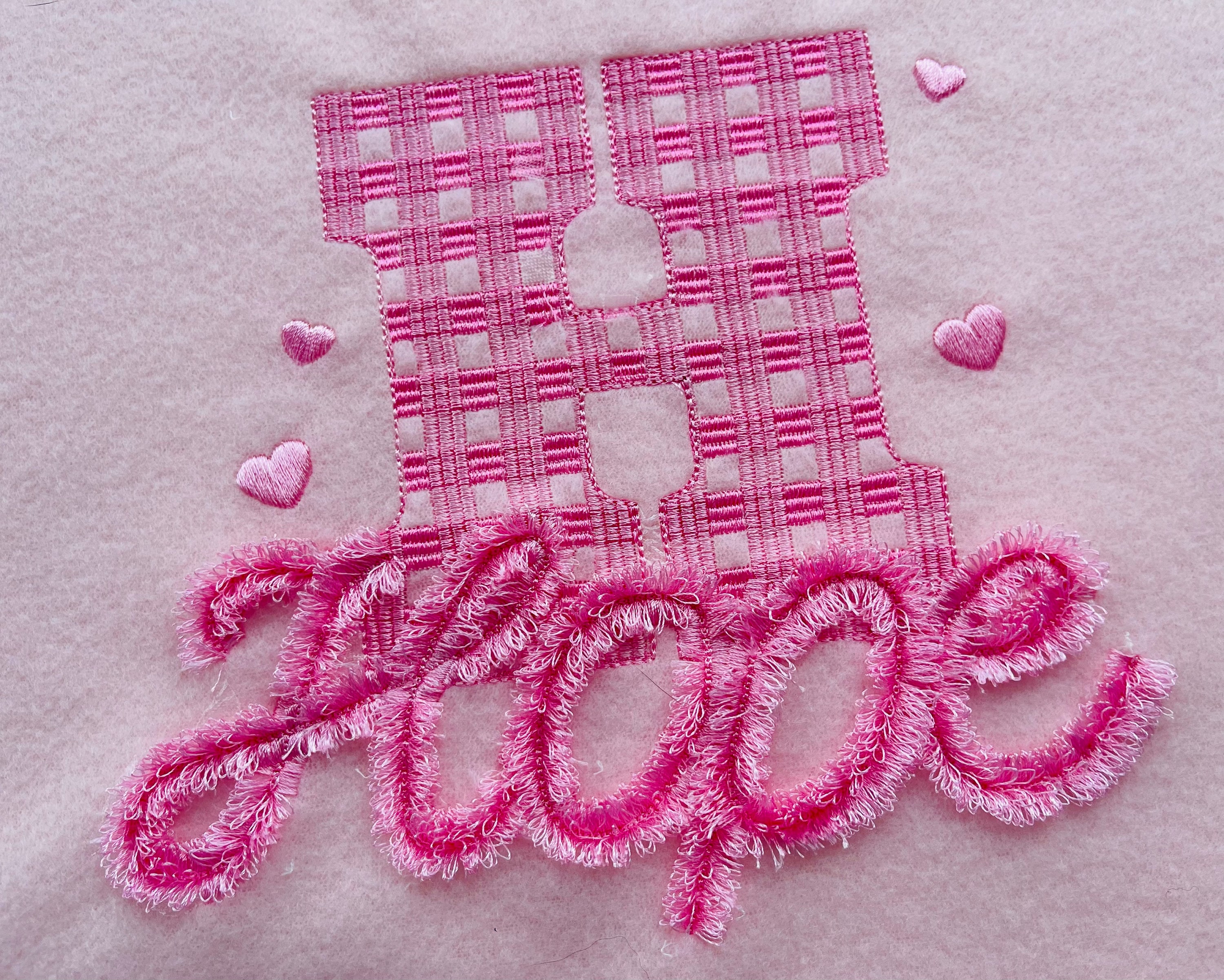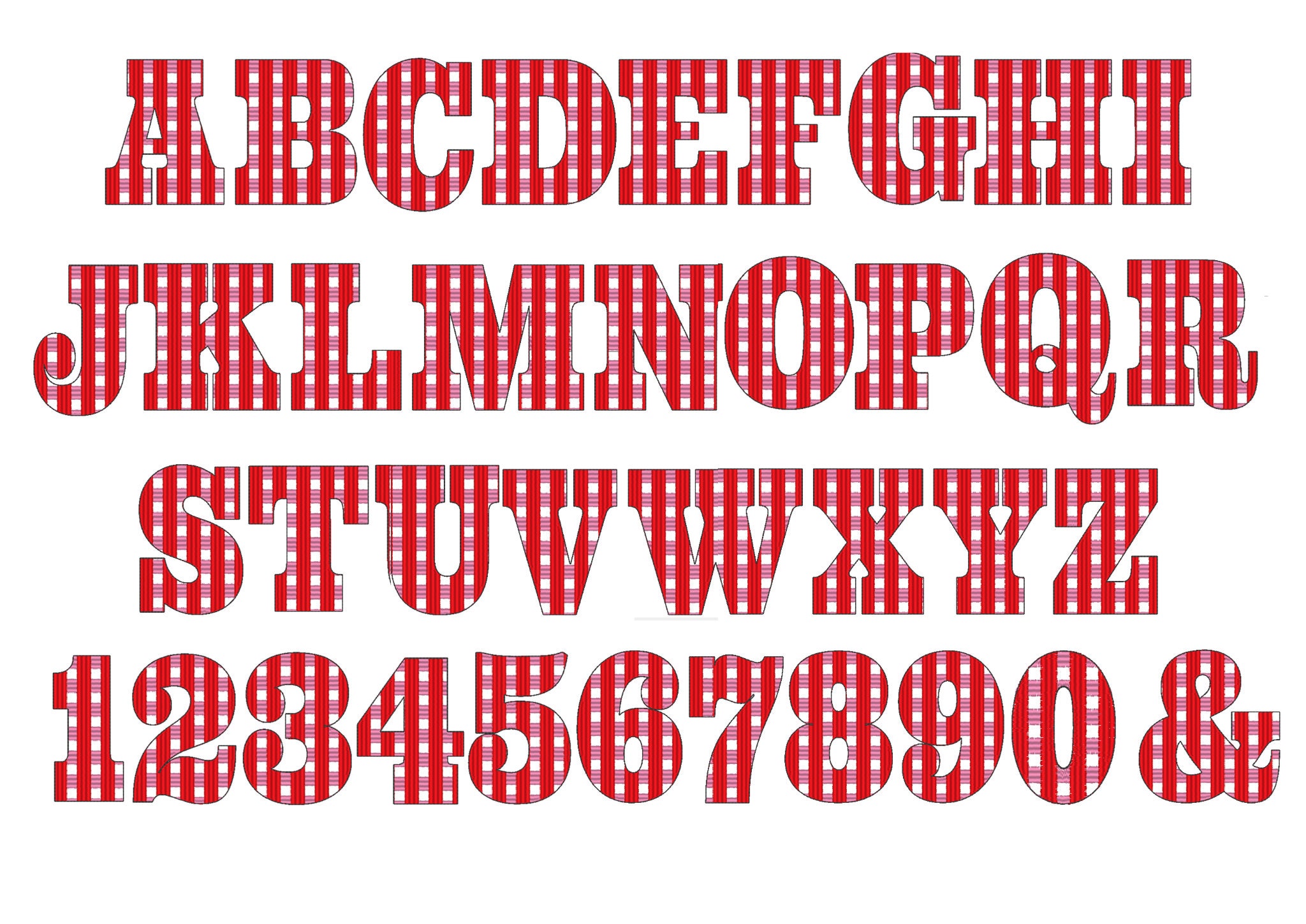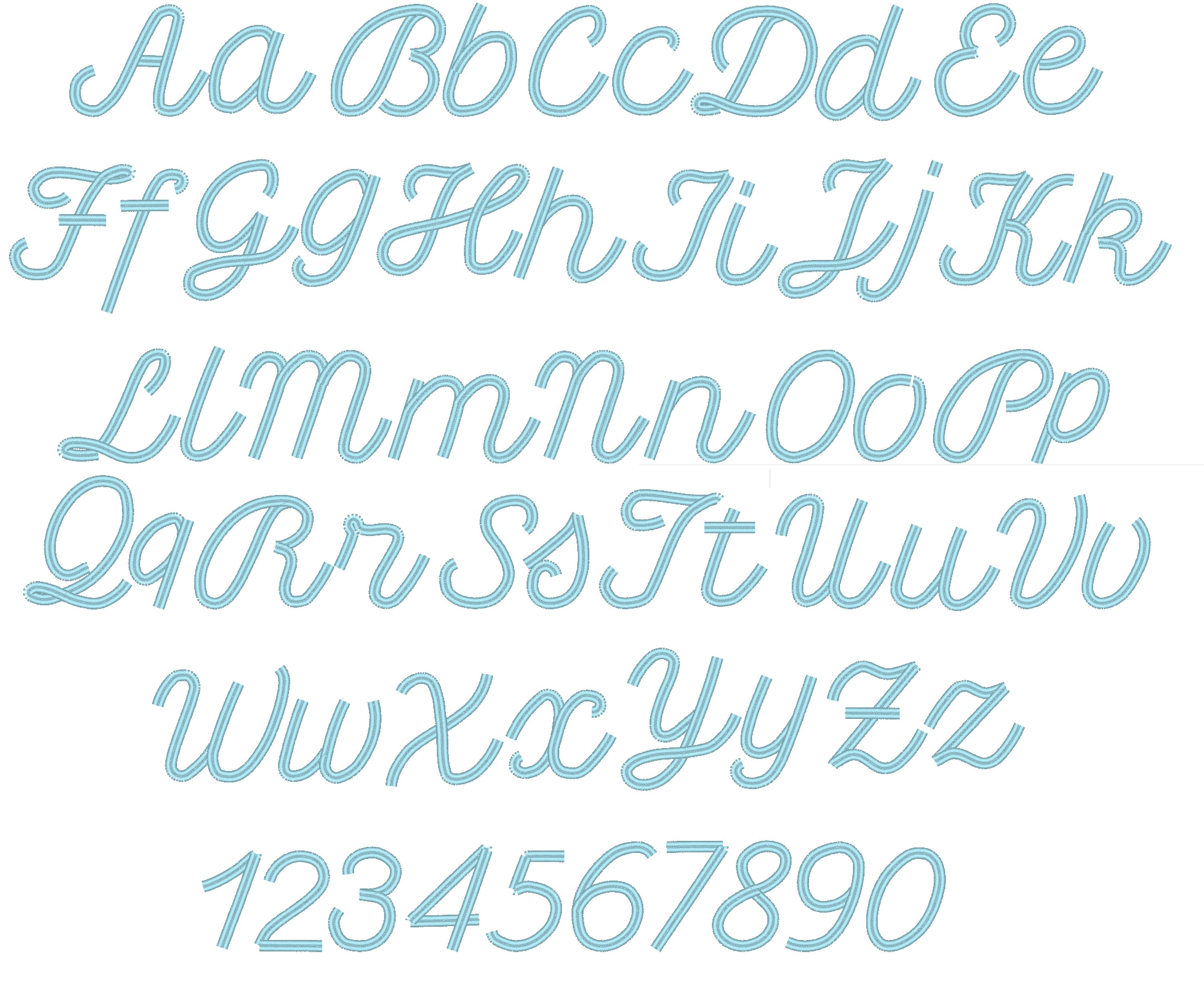
Gingham & Fringed FONT SET of 2 alphabets machine embroidery designs in assorted sizes chenille girly pretty fluffy and buffalo letters, BX included
SET of 2 fonts
* Fringed Font
* Gingham Font
SIZES - Fringed font
Entire alphabet A-Z uppercase and lowercase
You may fringe all letters. Please view the last image on how-to.
SIZES - Gingham monogram uppercase letters in height
The Gingham product that is pictured isn't what is sold. In the photo it shows 3 raised stitches for the gingham design. The 3 satin stiches are just tatami stitches.
Gingham stitching did not look good.